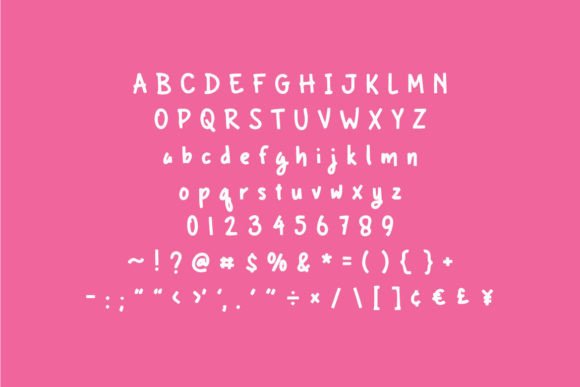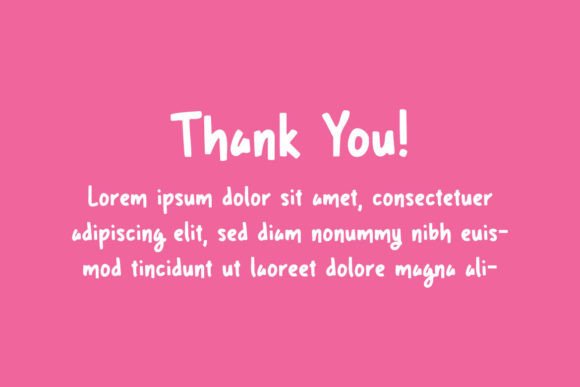
Introducing Agnesh Font: The Modern and Bold Handwritten Font
Are you looking for a font that can add a fun and playful touch to your designs? Look no further than Agnesh Font! This modern and bold handwritten font is perfect for creatives who want to make a statement with their work. In this article, we’ll dive into the features and benefits of Agnesh Font, and explore the various ways you can use it in your designs.
What is Agnesh Font?
Agnesh Font is a modern and bold handwritten font that brings a fun and playful ambiance to each word. Its unique and stylish design makes it perfect for a wide range of applications, from book covers and music covers to children’s books, posters, advertisements, social media content, logos, and more.
Key Features of Agnesh Font
- Modern and Bold Design: Agnesh Font features a modern and bold design that is sure to grab attention.
- Handwritten Style: The font has a handwritten style that gives it a personal and playful touch.
- Versatile: Agnesh Font can be used in a wide range of applications, from print to digital media.
- Easy to Read: Despite its bold design, Agnesh Font is easy to read, making it perfect for body text and headings.
Uses of Agnesh Font
Agnesh Font is a versatile font that can be used in a variety of applications, including:
- Book Covers: Add a playful touch to your book covers with Agnesh Font.
- Music Covers: Use Agnesh Font to create eye-catching music covers that stand out.
- Children’s Books: Agnesh Font is perfect for children’s books, adding a fun and playful touch to your illustrations.
- Posters: Create bold and eye-catching posters with Agnesh Font.
- Advertisements: Use Agnesh Font to add a playful touch to your advertisements.
- Social Media Content: Agnesh Font is perfect for social media content, adding a fun and playful touch to your posts and stories.
- Logos: Use Agnesh Font to create unique and memorable logos for your brand.
Benefits of Using Agnesh Font
There are many benefits to using Agnesh Font in your designs, including:
- Unique Design: Agnesh Font has a unique design that will set your work apart from others.
- Playful Ambiance: The font adds a fun and playful ambiance to your designs, making them more engaging and attention-grabbing.
- Versatility: Agnesh Font can be used in a wide range of applications, making it a great addition to your font library.
Tips for Using Agnesh Font
Here are some tips for using Agnesh Font in your designs:
- Use it for Headings: Agnesh Font is perfect for headings and titles, adding a bold and playful touch to your designs.
- Pair it with Other Fonts: Agnesh Font can be paired with other fonts to create a unique and stylish design.
- Experiment with Colors: Agnesh Font looks great in a variety of colors, so don’t be afraid to experiment and find the perfect color for your design.
Agnesh Font is a modern and bold handwritten font that is perfect for creatives who want to add a fun and playful touch to their designs. With its unique design, versatility, and ease of use, Agnesh Font is a great addition to any font library. Whether you’re designing book covers, music covers, children’s books, posters, advertisements, social media content, logos, or more, Agnesh Font is the perfect choice.